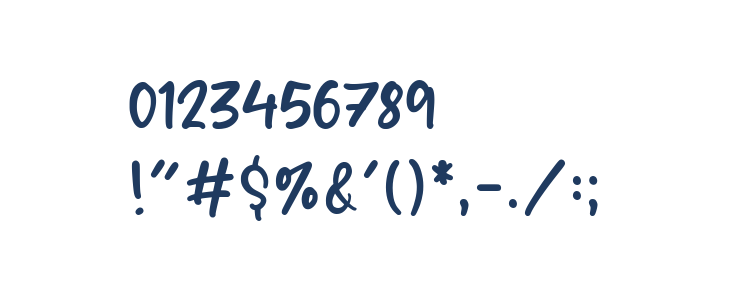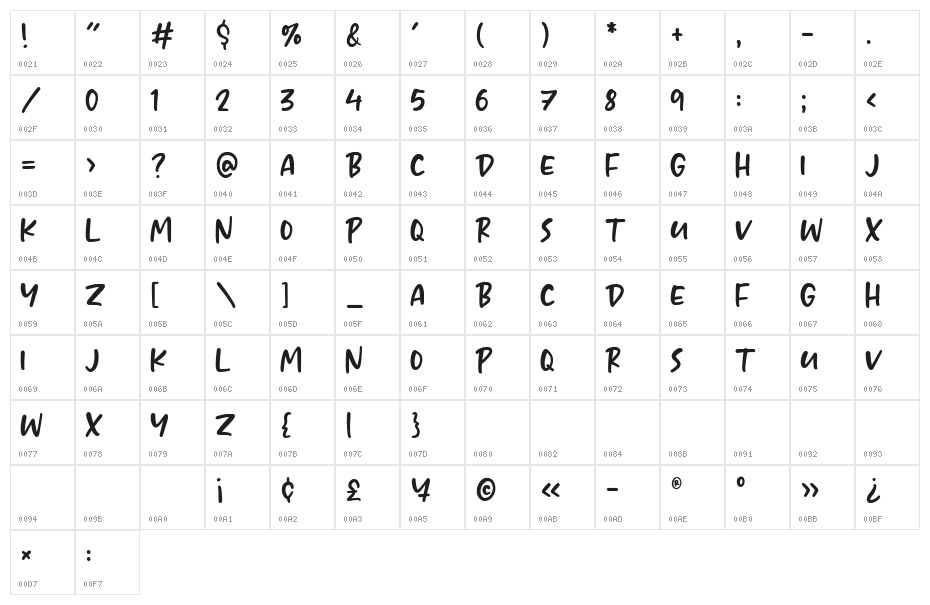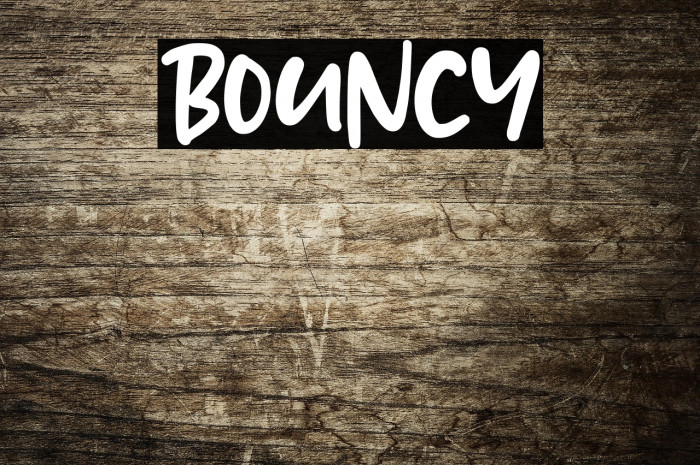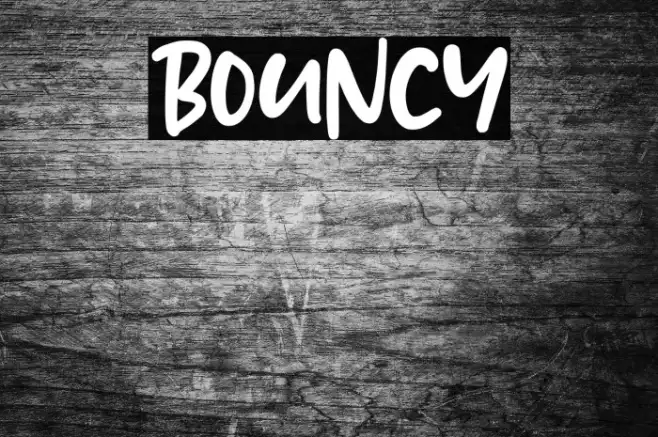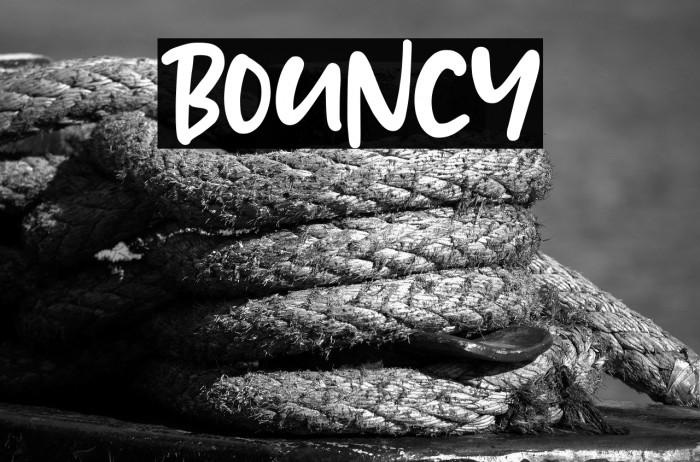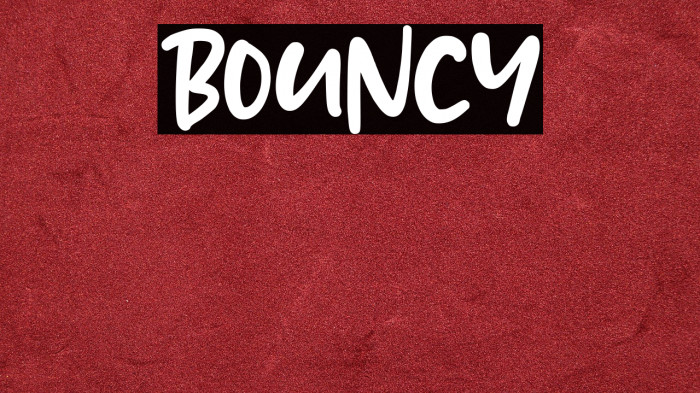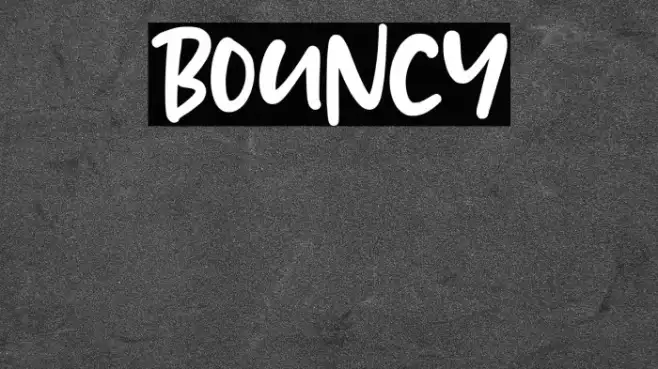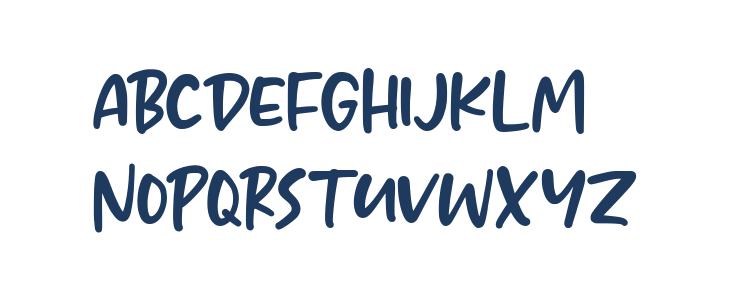
BOUNCY Font
BOUNCY Description
This playful and energetic font features a handwritten style with a lively and bouncy appearance. The letters are slightly irregular, adding a sense of movement and spontaneity. Each character is bold and rounded, with a consistent stroke width that gives it a friendly and approachable feel. The font maintains a uniform height across both uppercase and lowercase letters, ensuring readability while preserving its whimsical charm. The numbers and special characters are crafted with the same playful spirit, making it suitable for projects that aim to convey fun and creativity.